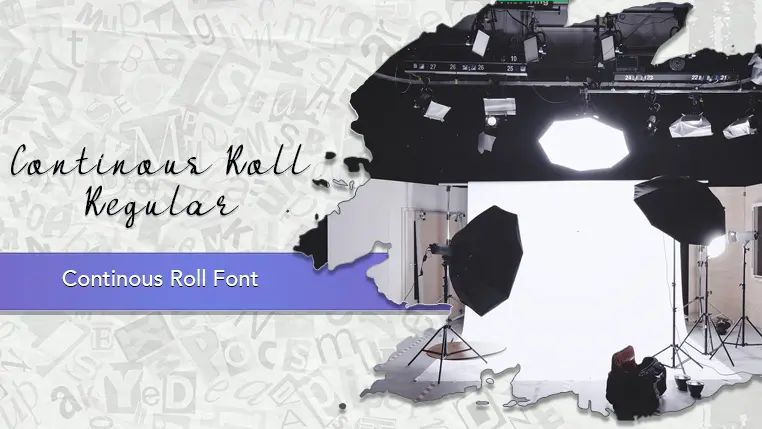
The Continous Roll font family may be ideal for you if you enjoy working on an artistic design project. The lively, expressive look of this typeface, which was created by Studio Hello Good, makes it ideal for Logo and Branding for businesses that want a sophisticated, personal, or artistic brand identity (e.g., photography, creative studios, high-end boutiques, luxury products), Wedding invitations, greeting cards, and personalized stationery that demand an elegant, custom look. Wall art, custom prints, or personalized gifts. and other light-hearted visual projects.
Regular are the one primary font styles of the Continous Roll font family. You may build dynamic, visually appealing text layouts with the distinct flair that each style offers. With crisp, readable lines and a relaxed tone.